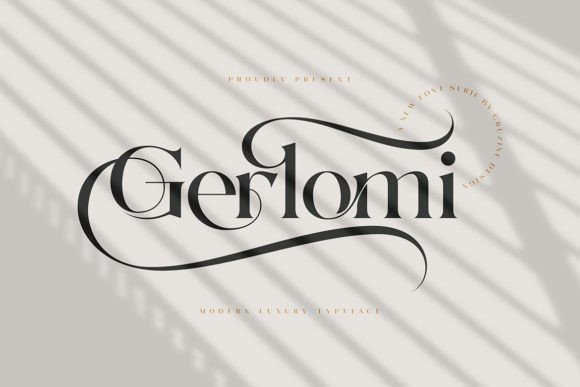
Welcome to the world of Gerlomi - the epitome of modern sophistication and style in the world of digital type. Gerlomi is not just a font; it's a statement of elegance, a reflection of your discerning taste, and a catalyst for your creative brilliance. With its clean lines, crisp edges, and contemporary interpretation of traditional serifs, Gerlomi is the font that sets you apart from the ordinary.
Step into the realm of Gerlomi and immerse yourself in its timeless beauty. This font is a symphony of curves and angles, meticulously crafted to evoke a sense of luxury and refinement. Its graceful serifs add a touch of timeless elegance, while its modern sensibility ensures that your designs remain relevant and captivating.
Whether you're a branding guru, an editorial maestro, or simply a design enthusiast seeking to elevate your work, Gerlomi is your perfect companion. Its versatility knows no bounds, effortlessly adapting to a myriad of projects. From sleek logos that command attention to captivating headlines that leave a lasting impression, Gerlomi transforms your words into works of art.
But it's not just about aesthetics; Gerlomi is also a font of functionality. Its PUA encoding grants you effortless access to a treasure trove of glyphs and swashes, empowering you to unleash your creativity and add intricate details that make your designs truly shine.
Join the ranks of creative visionaries who have embraced Gerlomi as their font of choice. Experience the joy of crafting designs that exude sophistication and leave an indelible mark on your audience. Gerlomi is more than a font; it's an investment in your creative journey, a key to unlocking your full potential as a design virtuoso.
As you embark on a new creative endeavor, let Gerlomi be your guiding light. Its modern elegance will elevate your designs, while its versatility ensures endless possibilities. Embrace the power of Gerlomi and watch as your creations transform into masterpieces, leaving your audience captivated and inspired.